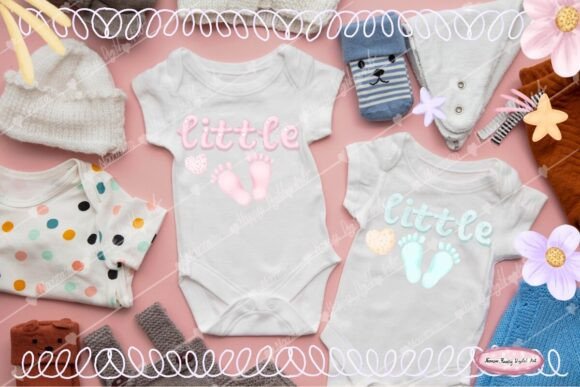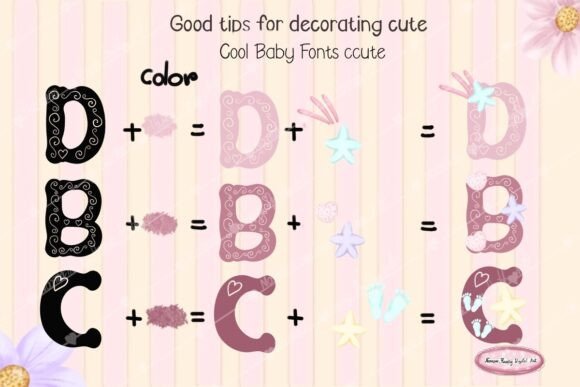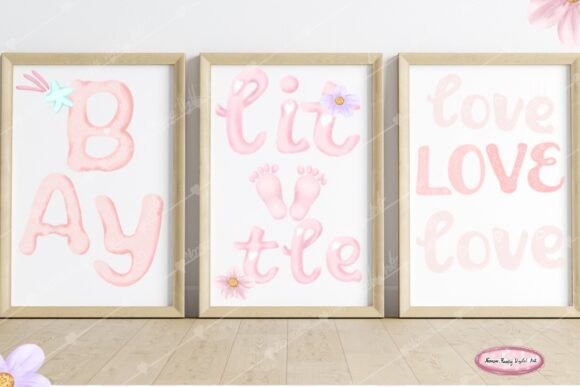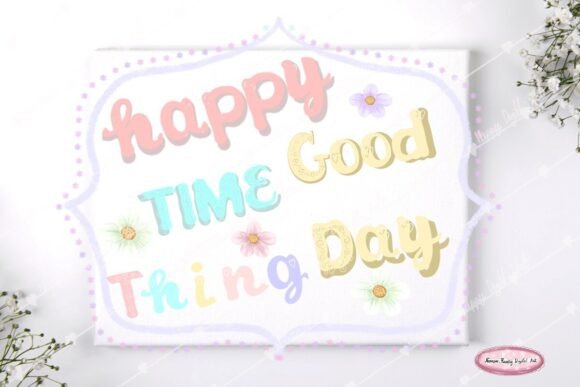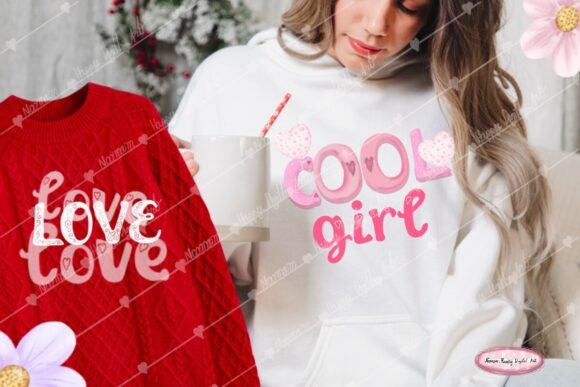
Introducing Cool Baby Font: The Sweet and Friendly Decorative Font for Your Creative Projects
Are you a designer, crafter, or DIY enthusiast looking for a font that can add a touch of sweetness and friendliness to your creative projects? Look no further than Cool Baby Font! This beautiful decorative font is perfect for a wide range of designs, from baby shower invitations and nursery decor to branding, packaging, and more.
What Makes Cool Baby Font So Special?
Cool Baby Font is a unique and natural-looking decorative font that is sure to capture the hearts of anyone who sees it. Its sweet and friendly style makes it incredibly fitting for designs that require a personal touch. Whether you’re creating something for a baby shower, a child’s birthday party, or just a fun project, Cool Baby Font is the perfect choice.
One of the best things about Cool Baby Font is its versatility. Its natural and unique style makes it suitable for a large pool of designs, from modern and trendy to vintage and rustic. The only limit is your imagination! You can use it to create beautiful hand-lettered designs, add a personal touch to your digital projects, or even use it as a title font for your blog or social media posts.
Cool Baby Font is a must-have for designers and crafters who want to add a touch of personality to their work. Whether you’re creating custom stationery, party decorations, or handmade crafts, this font is sure to inspire your creativity. Its unique style and friendly feel make it perfect for projects that require a personal touch.
Designers will love the flexibility of Cool Baby Font, which can be used for a wide range of projects, from branding and packaging to web design and social media graphics. Crafters will appreciate the font’s handmade feel, which adds a touch of warmth and personality to any project.
Key Features of Cool Baby Font
- Sweet and Friendly Style: Cool Baby Font has a natural and unique style that is sure to capture the hearts of anyone who sees it.
- Versatile: This font is suitable for a wide range of designs, from modern and trendy to vintage and rustic.
- High-Quality: This font is designed to be high-quality and clear, making it perfect for printing and digital use.
Here are a few ideas for using Cool Baby Font:
- Create custom baby shower invitations and decorations
- Design personalized nursery decor, such as wall art and mobiles
- Add a touch of personality to your branding and packaging
- Create handmade crafts, such as cards and gift tags
| Font Name | Cool Baby Font |
| Author | Noomam Happy digital Art |
Cool Baby Font is a beautiful and versatile decorative font that is perfect for designers, crafters, and DIY enthusiasts. Its sweet and friendly style makes it incredibly fitting for a wide range of designs, from baby shower invitations and nursery decor to branding and packaging. With its natural and unique style, Cool Baby Font is sure to inspire your creativity and add a touch of personality to your projects. So why wait? Download Cool Baby Font today and start creating!